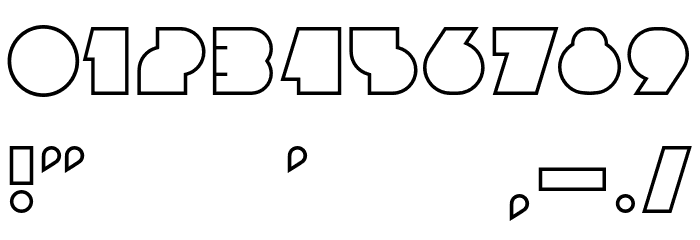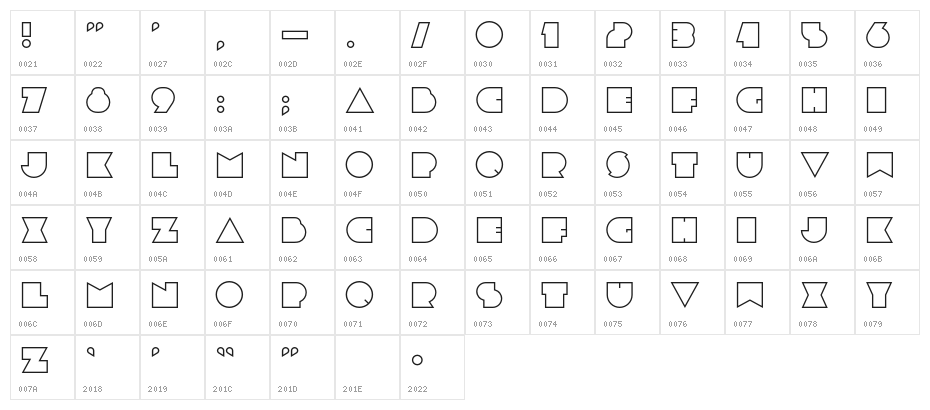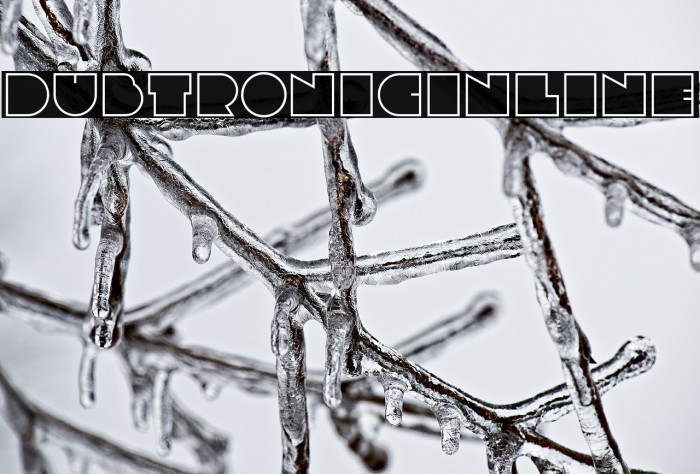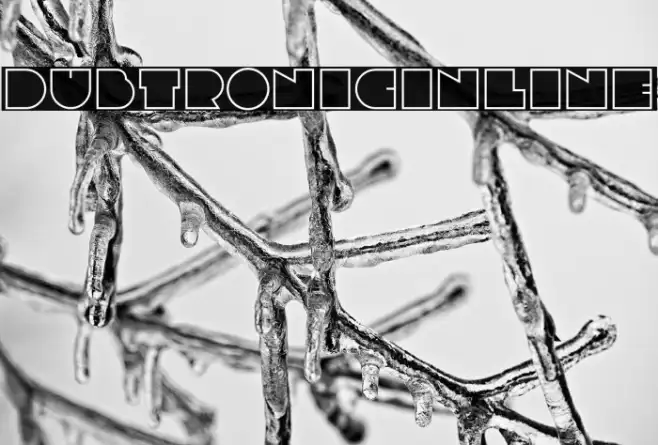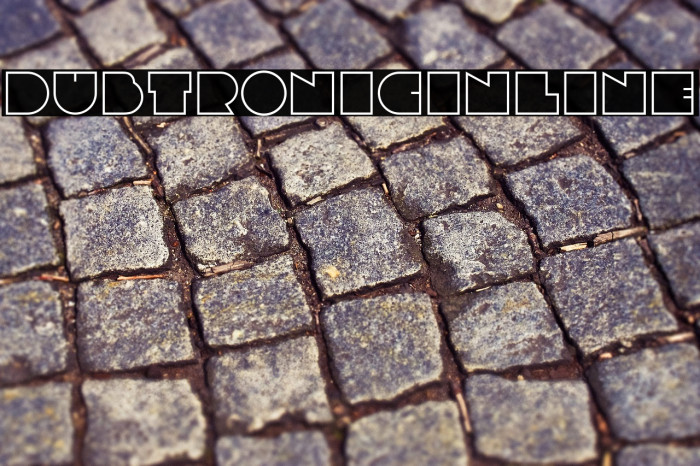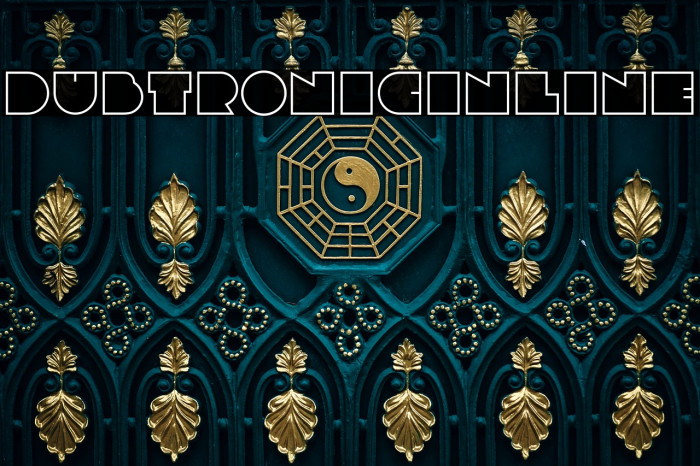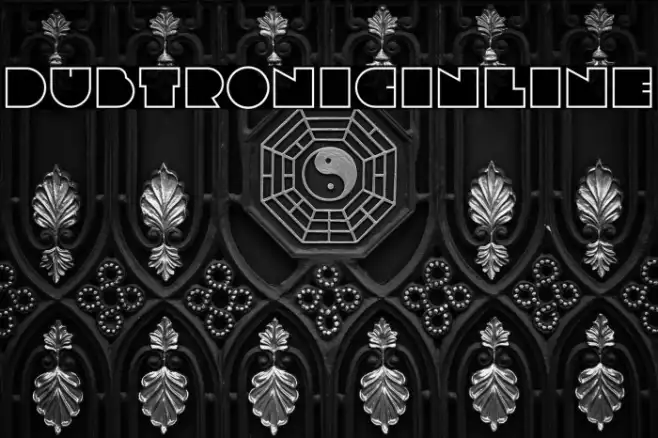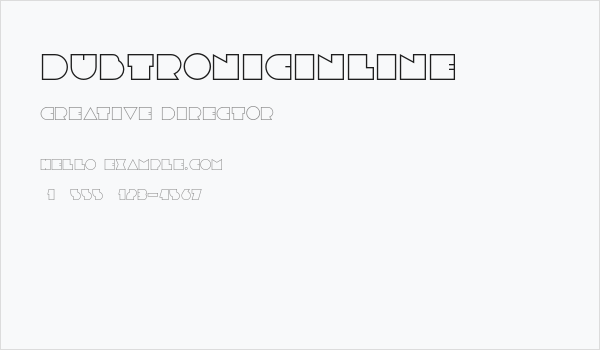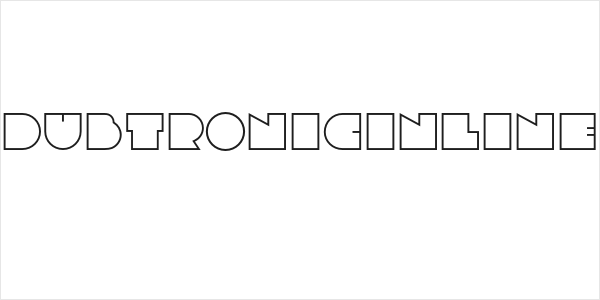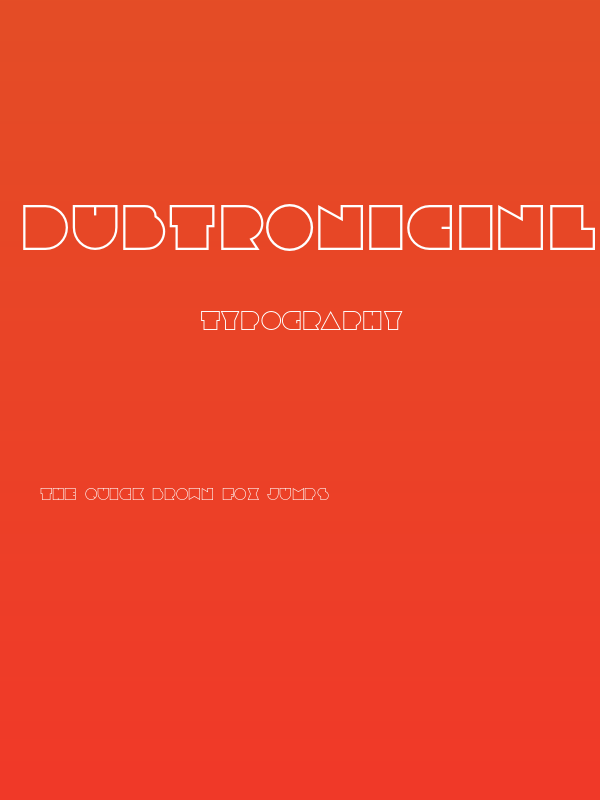
DubtronicInline Font
DubtronicInline Description
This font features a geometric and futuristic design with bold, angular shapes and clean lines. The characters are outlined, giving them an inline appearance that adds a unique visual depth. Each letter is constructed with a combination of straight lines and sharp angles, creating a modern and edgy aesthetic. The uppercase and lowercase letters maintain a consistent style, while the numerals and special characters follow the same geometric theme. The overall look is striking and suitable for projects that require a contemporary and eye-catching typeface.
| Proposed Projects | Ideal for branding, posters, album covers, and any design needing a modern, edgy look. |